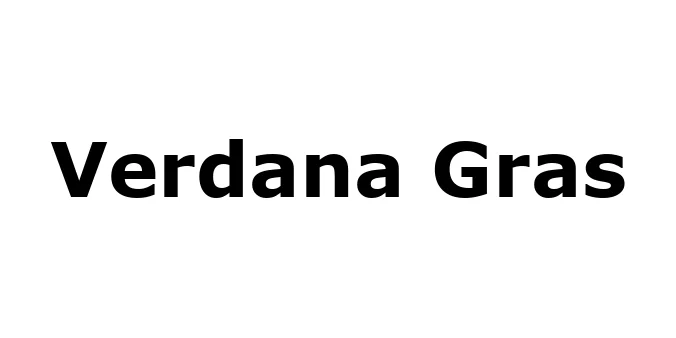
Verdana Gras
Designed by Matthew Carter
Verdana Gras is the bold weight of the iconic Verdana typeface family, commissioned by Microsoft and released in 1996. Designed by the renowned type designer Matthew Carter, with hand-hinting by Tom Rickner, it was specifically created to address the challenges of on-screen display on low-resolution monitors. The design features a large x-height, wide proportions, and generous letter-spacing, which work together to ensure that characters remain distinct and readable even at very small sizes.
The Verdana Gras variant provides a robust visual weight that maintains the clarity of the original design. Unlike many other sans-serif fonts, it avoids character ambiguity by using unique shapes for similar letters, such as the 'I', 'l', and '1'. Because of its exceptional legibility and its status as a core font for the web, it has remained a staple in digital design, user interfaces, and technical documentation for decades.
Verdana Gras Best Uses
Optimized for readability in long-form digital articles and blogs.
High legibility for navigation menus, buttons, and dashboard labels.
Clear and impactful for headings and bullet points on screen.
Ensures clarity for instructional text and fine print.